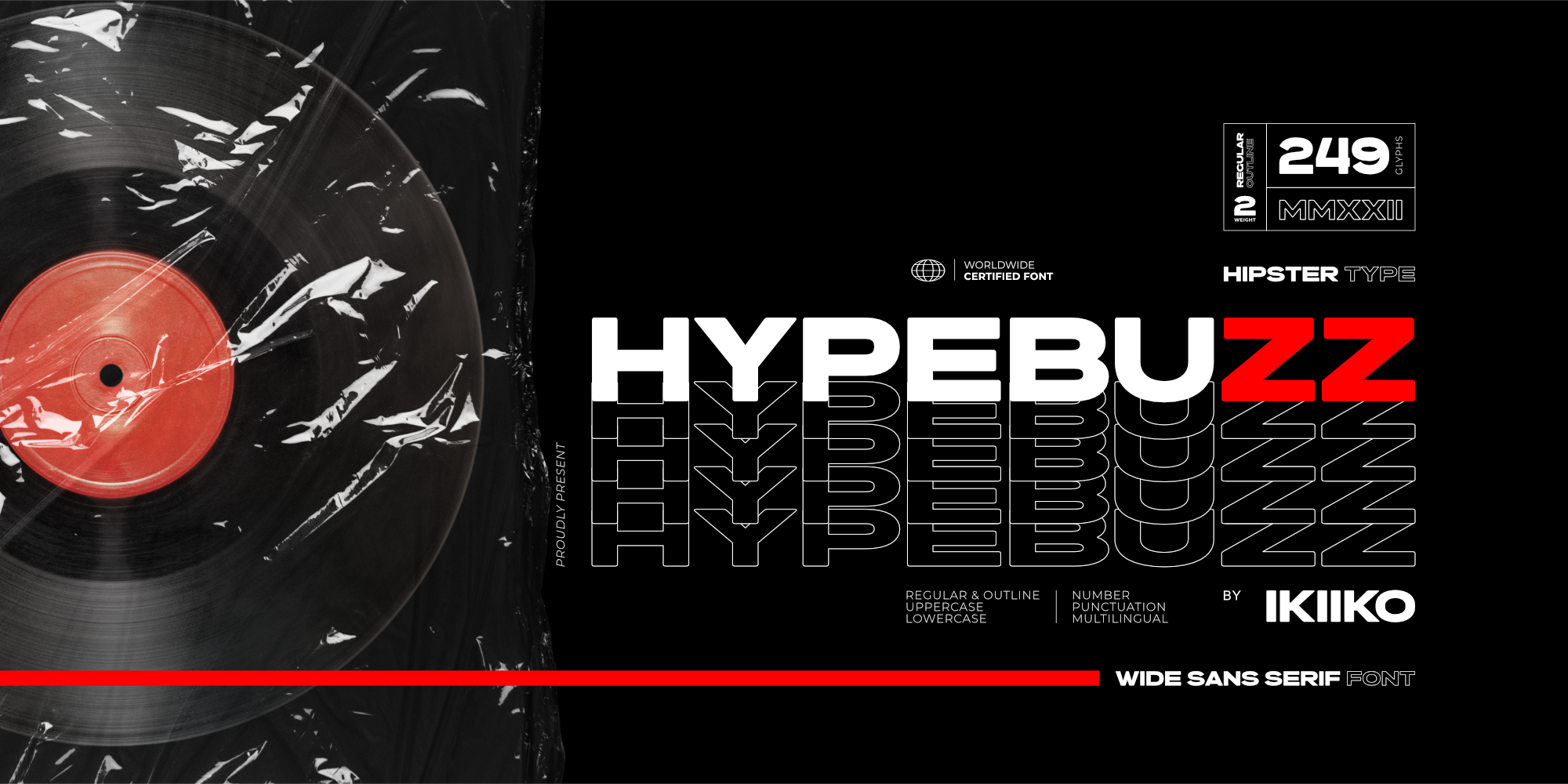
Hypebuzz Font is perfect for trendy social media campaigns, viral marketing materials, youth culture branding, streetwear fashion labels, influencer collaboration designs, energetic event promotions, dynamic app interfaces, modern music festival graphics, trending lifestyle products, and electrifying projects that capture the pulse of contemporary digital culture with magnetic excitement and unstoppable energy.
What makes Hypebuzz Font so exciting is its masterful embodiment of viral energy through dynamic letterforms that pulsate with social media intensity and cultural relevance. This typeface captures the essence of trending content and digital buzz, featuring electric character details and modern proportions that suggest rapid-fire notifications and viral spreads while maintaining excellent readability for contemporary digital applications requiring instant attention and cultural connection.
Hypebuzz Font family includes multiple energetic variations: Regular, Bold, Light, Electric, Viral, Trending, Buzz, and Impact versions. Each style maintains the font's inherent digital energy while offering different levels of excitement and social media appeal, enabling designers to create authentic contemporary aesthetics that resonate with audiences seeking cutting-edge trends and viral entertainment experiences.
The magnetic appeal of Hypebuzz Font Free Download makes it exceptionally valuable for digital marketing and youth-focused industries targeting trend-conscious audiences. This font successfully communicates excitement and cultural relevance, making it perfect for brands that want to create viral content and connect with digitally native audiences who drive contemporary culture. Its dynamic character works effectively across both social media platforms and trendy print materials, while its distinctive buzz-worthy aesthetic creates immediate engagement among audiences who appreciate viral trends and contemporary digital culture.